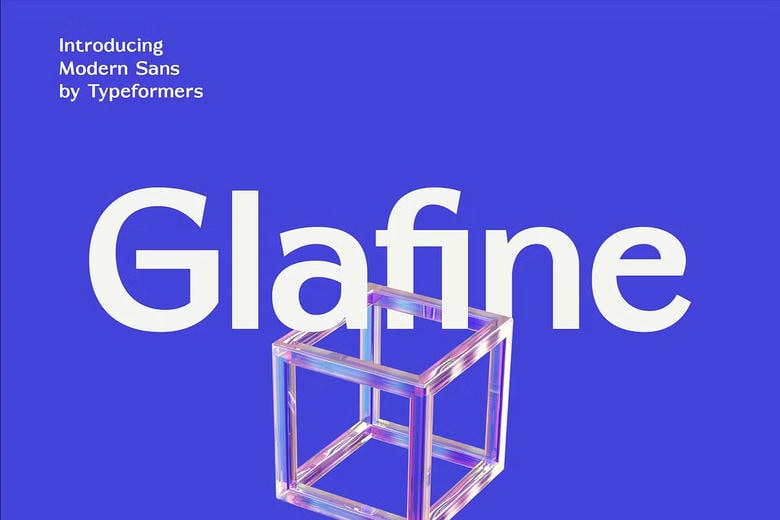
Glafine Font
Glafine is a  Modern Sans Serif Font. Glafine is one of the latest fonts that can be best applied as headings, logos, brands, magazine headings, product labels, and invitations.
Glafine Sans Serif Font